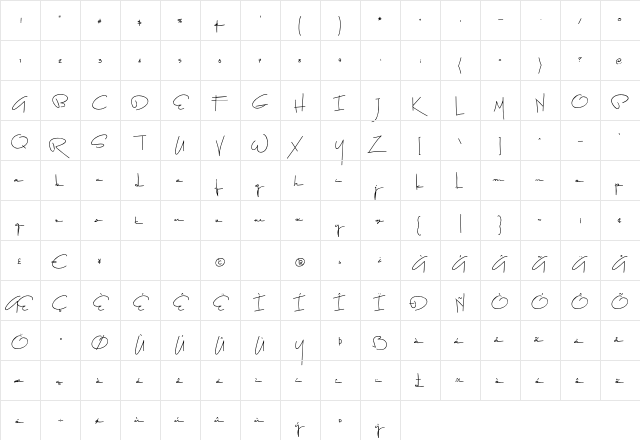
AfterDark BB Regular
| Foundry | Nate Piekos. Blambot.com |
| Designer | Nate Piekos |
Design Context for AfterDark BB Typeface
AfterDark BB is a composed and adaptable typeface that performs quietly and consistently across a wide range of design contexts.